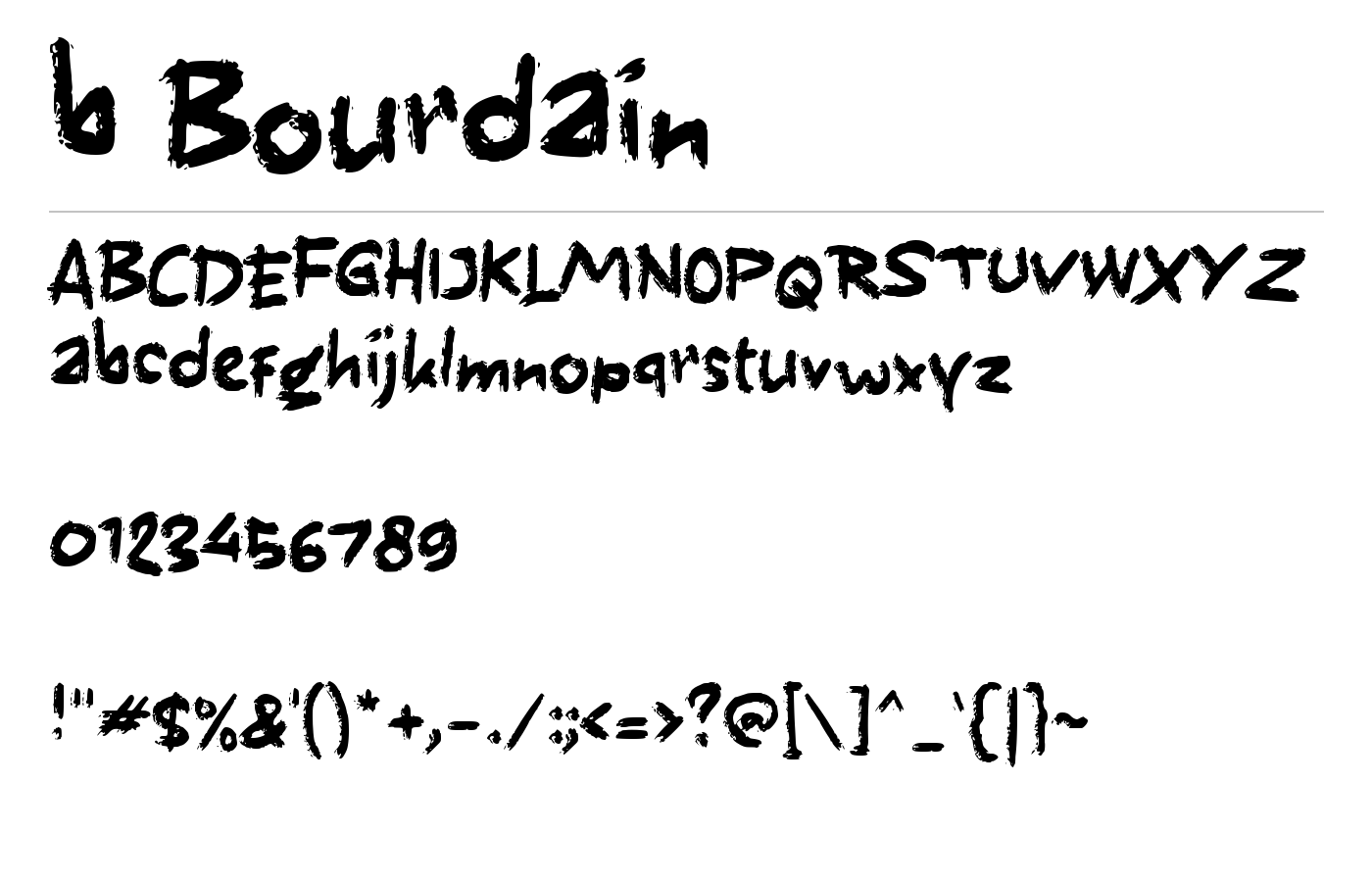
Bourdain is a bold, textured handwritten font that brings an edgy and artistic feel to any design. Its rough, brushstroke-like letters create a dynamic and informal style that works well for creative projects, casual branding, and expressive headlines. This font adds personality and a handcrafted touch, making it ideal for posters, logos, and designs that crave a raw, authentic vibe.
b Bourdain Font
About b Bourdain Font